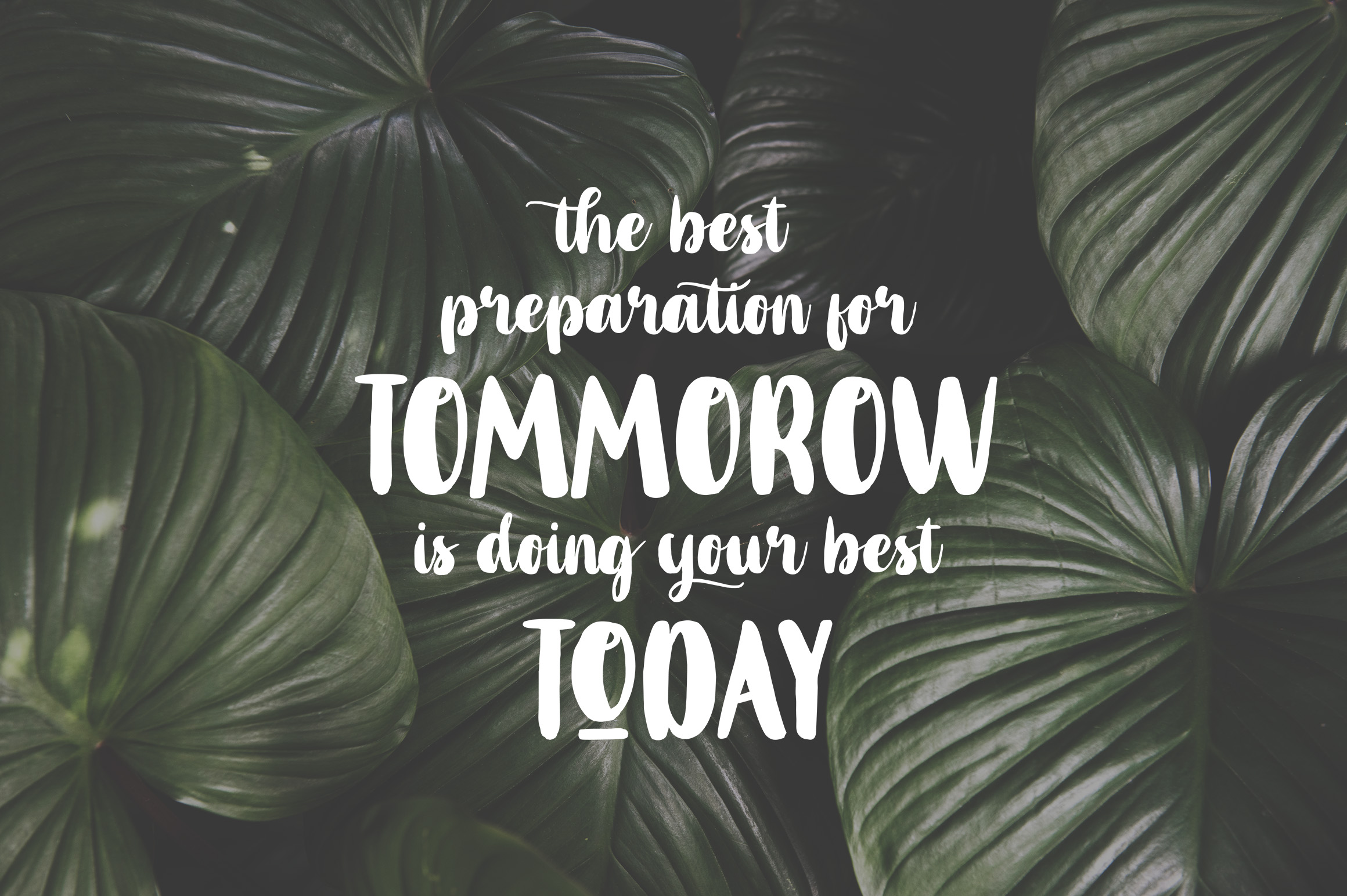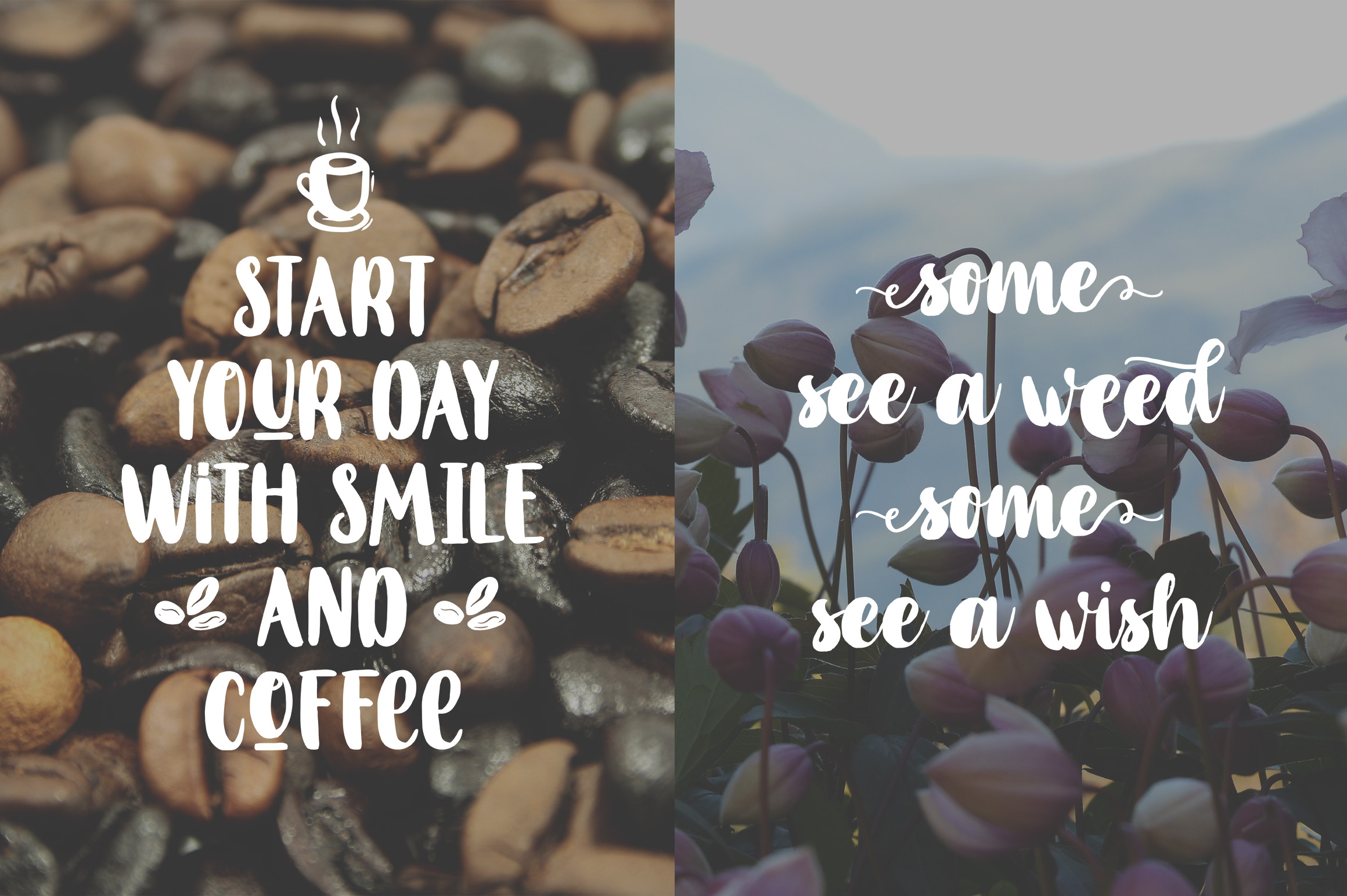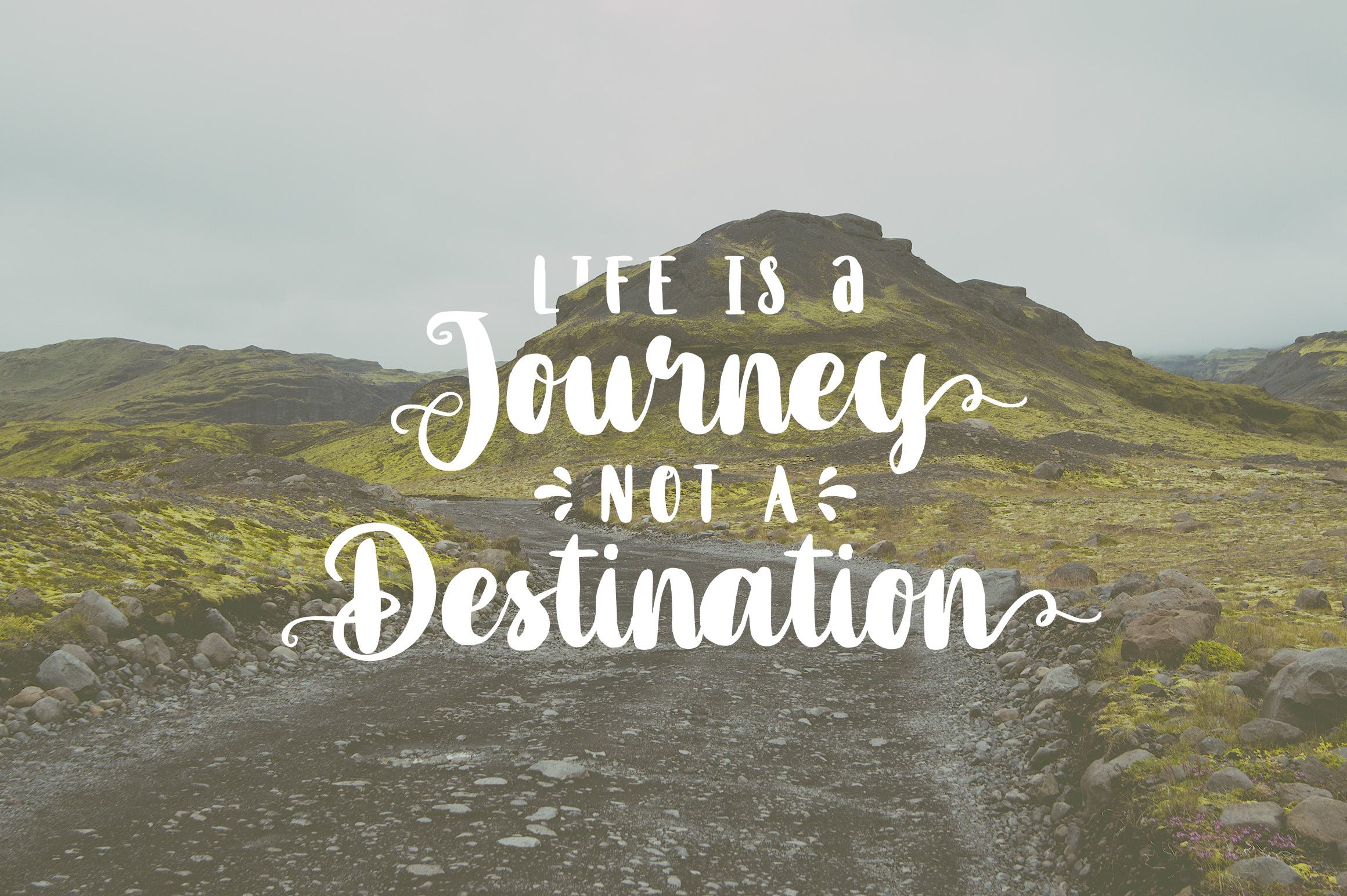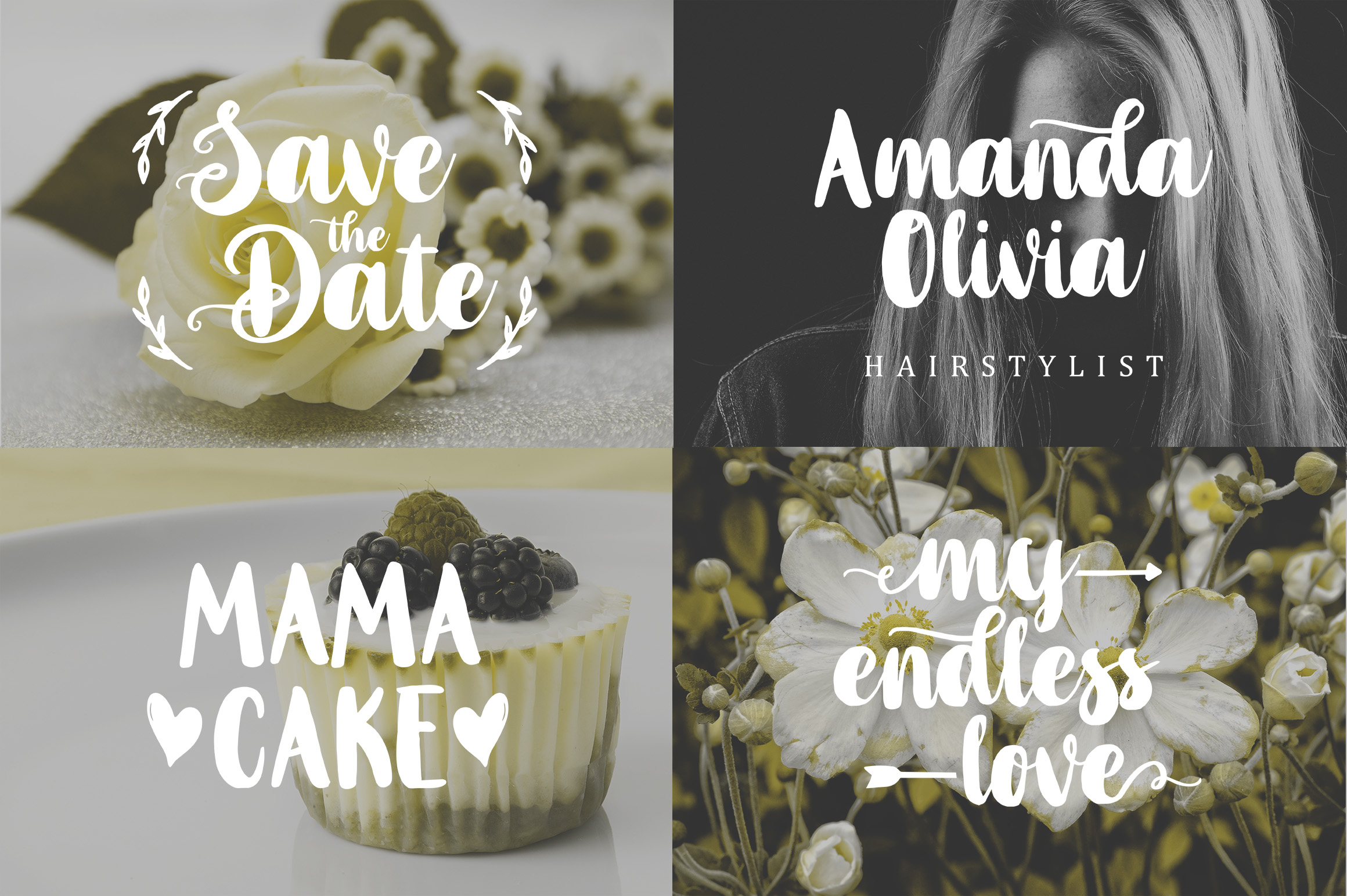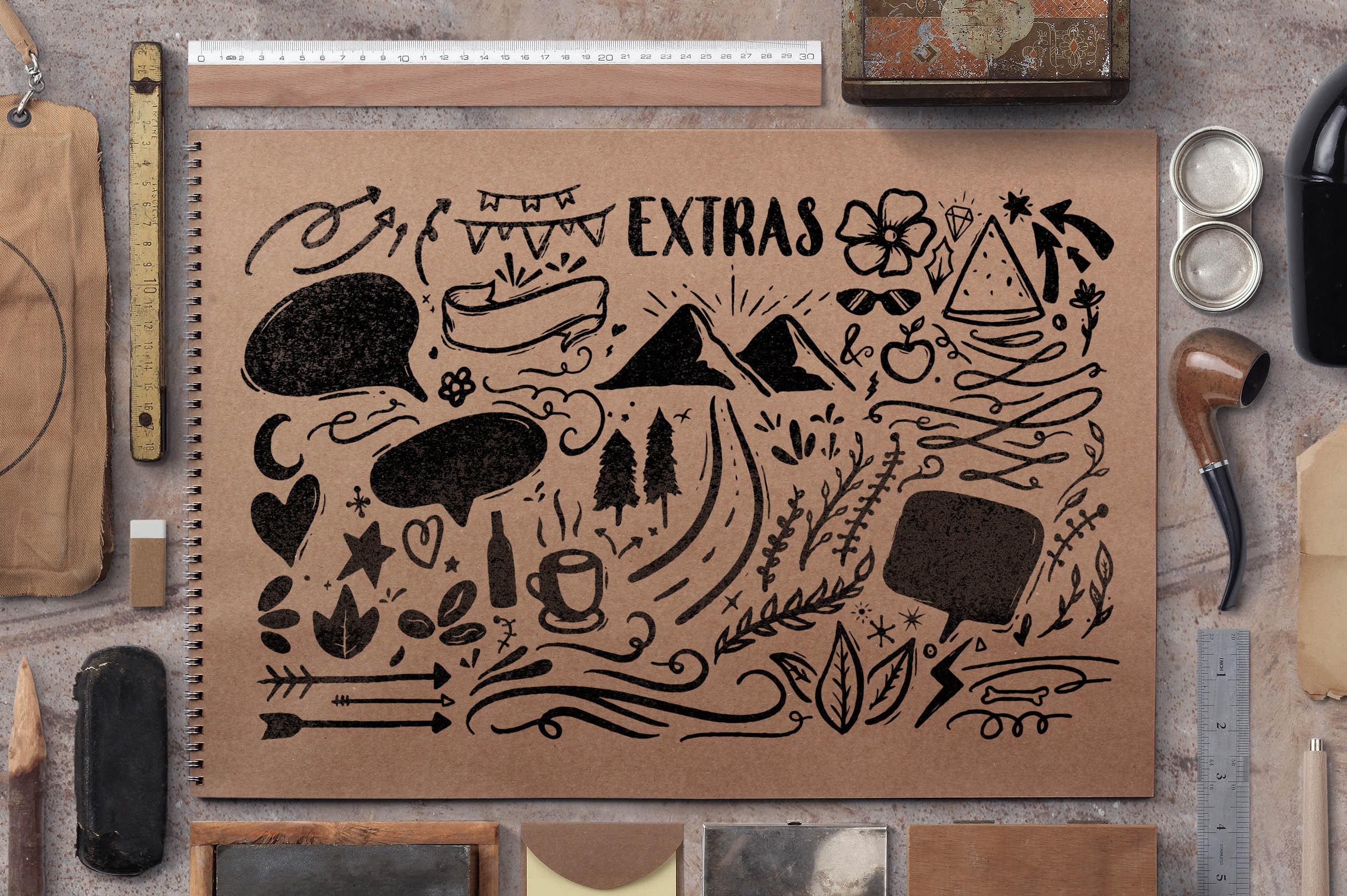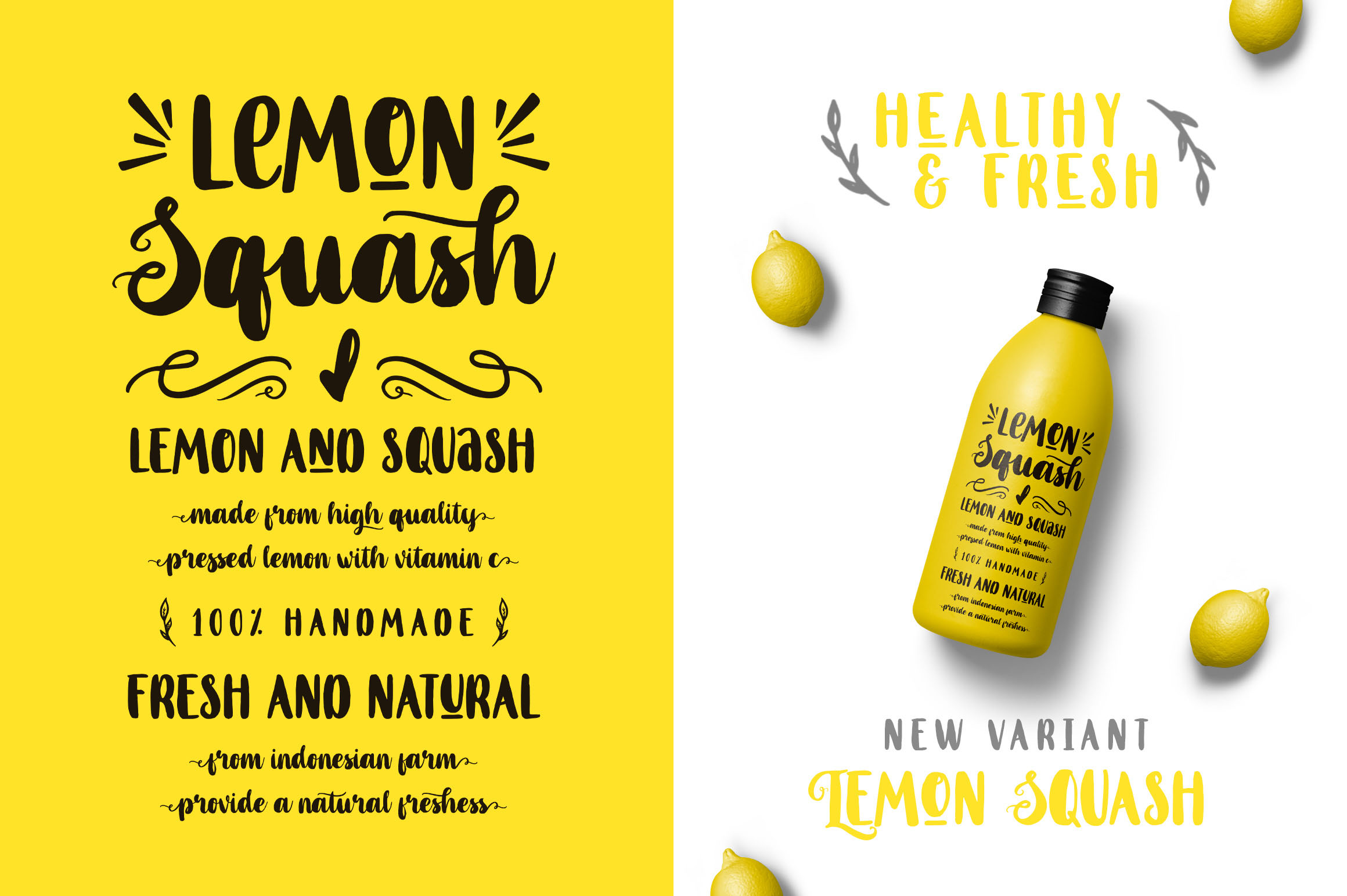
Introduction to Mahoni Font Font
Fonts play a crucial role in design, and the Mahoni Font font is a typeface that brings both character and versatility to any project. Whether you’re working on a branding project, a website, or a print design, the Mahoni Font font offers a unique style that can elevate your work.
Mahoni is a stunning handwritten script font, both elegant and friendly.
This high contrast calligraphy style handwritten font is a great way to add some authenticity and approachability to your designs .
The Mahoni Font font is more than just a typeface – it’s a design tool that helps you communicate your message with style and clarity. Its unique character set and versatile design make it suitable for a wide range of applications, from elegant invitations to bold headlines.
With its carefully crafted letterforms and balanced proportions, the Mahoni Font font ensures readability and visual appeal across all mediums.
The Mahoni Font font stands out with its unique design, exceptional readability, and versatility across various design applications.